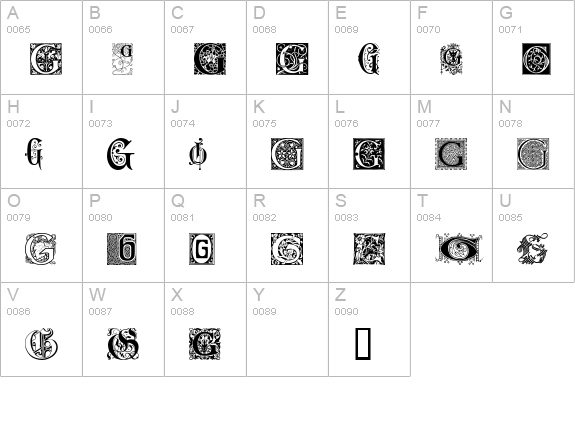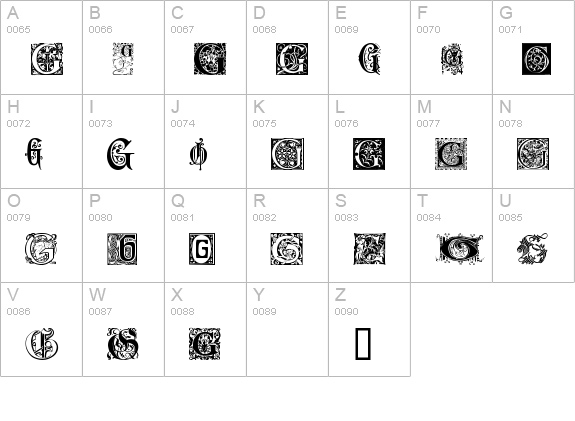
Ornamental Initials G font is a stunning and intricate typeface featuring ornate details and elegant design. This font is perfect for adding a touch of sophistication and style to your projects. The ornamental initials create a sense of luxury and grandeur, making it ideal for invitations, wedding stationery, and other special occasions. Best of all, Ornamental Initials G font is completely free to download at FontsMarket.com. Whether you're a designer looking to elevate your designs or someone wanting to add a touch of elegance to their personal projects, this font is a fantastic choice. Don't miss out on the opportunity to enhance your creations with this exquisite typeface, available for free at FontsMarket.com.